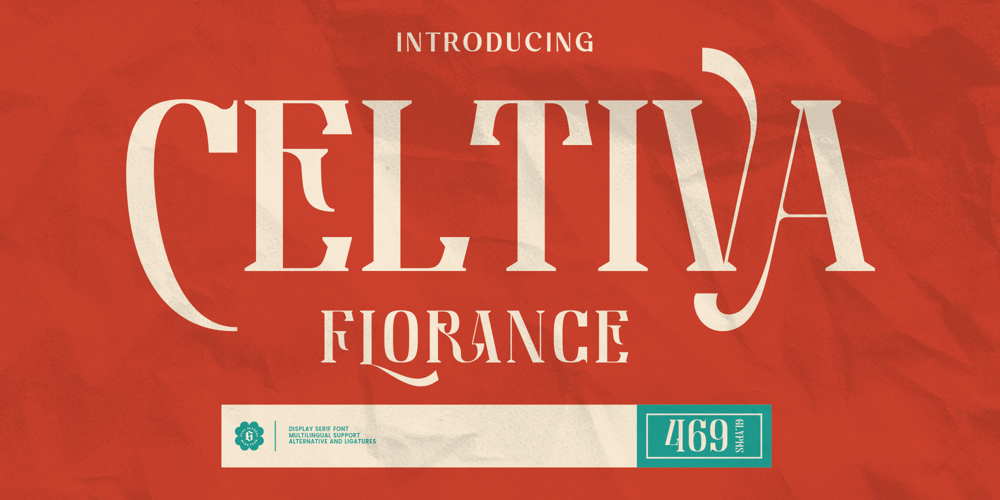
Celtiva Florance
Celtiva Florance font
Celtiva Florance Font Family was designed by Guntur Septyan and published by GuseType. Celtiva Florance contains 1 styles and family package options. Celtiva Florance is a display serif font. This font is perfect for various designs especially classic, retro and vintage style. this font also good for your project like logotypes, magazine headlines, posters, cover albums and much more. Celtiva Florance provides a collection of glyphs include numeral & symbols, multilingual support, alternative glyphs & ligatures.